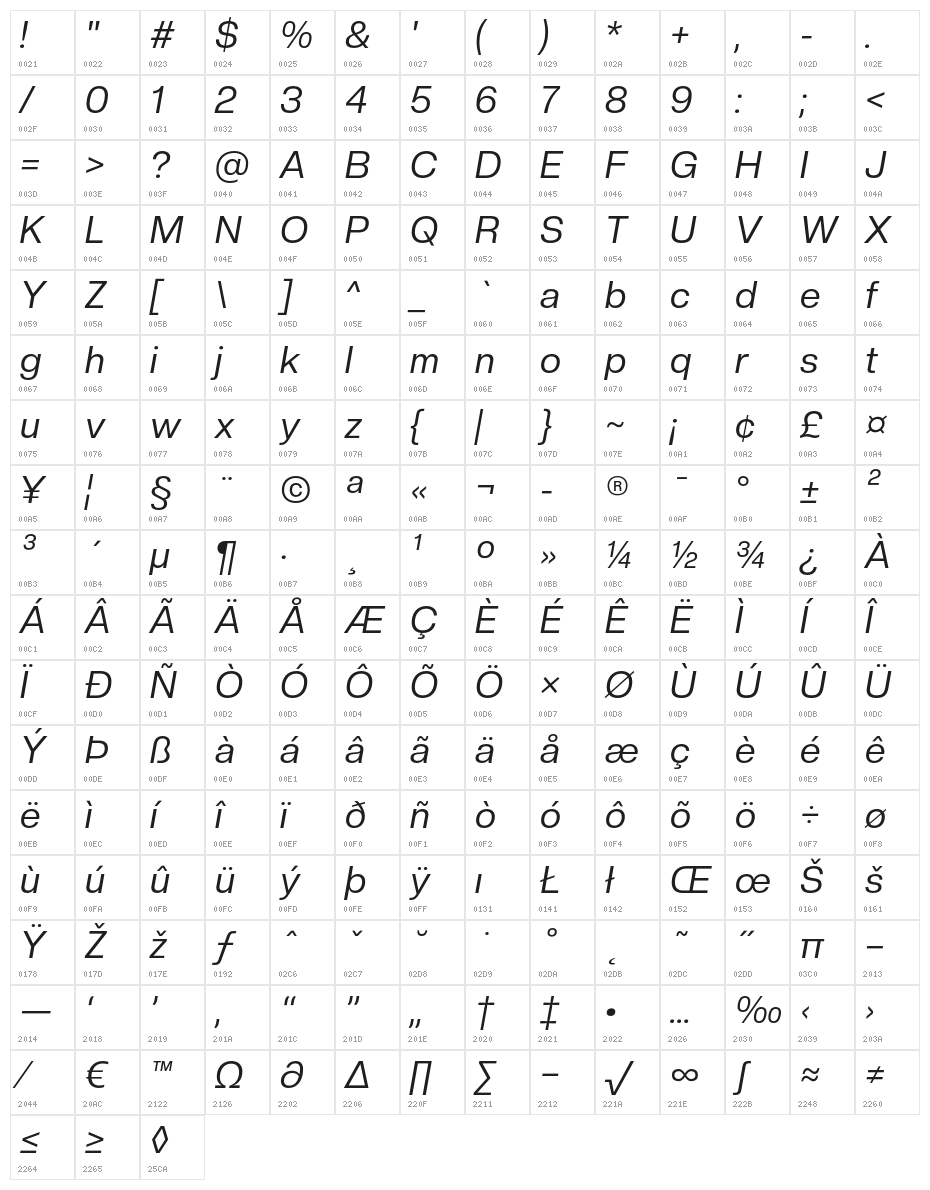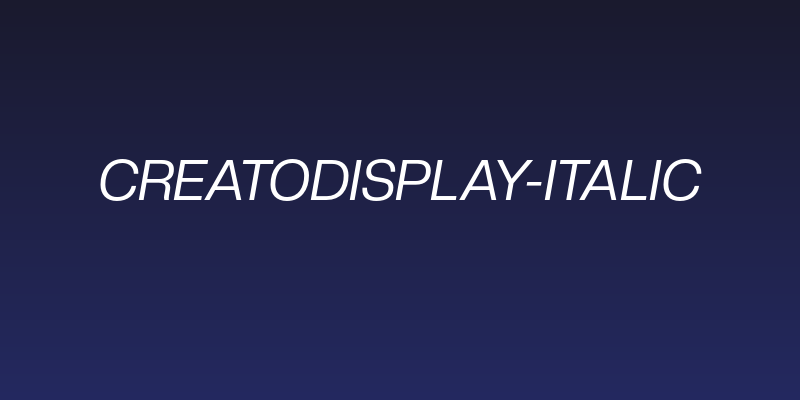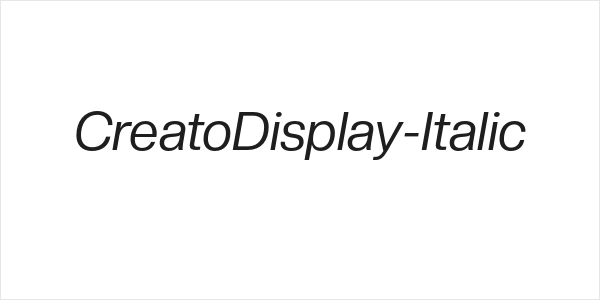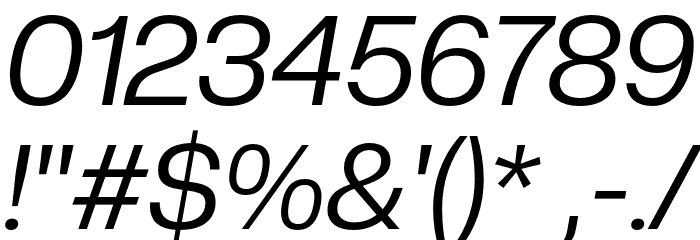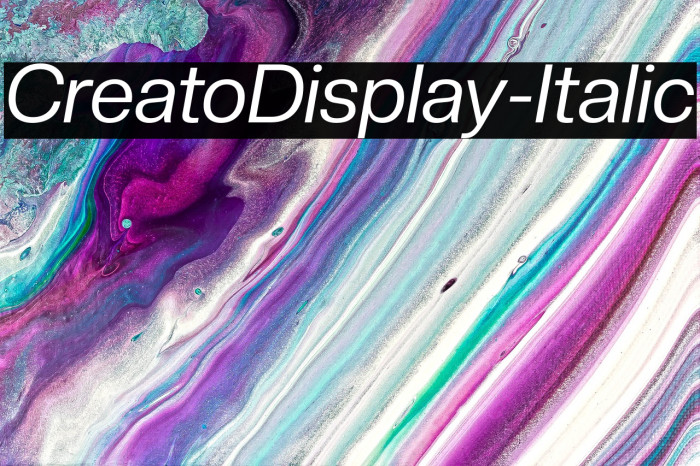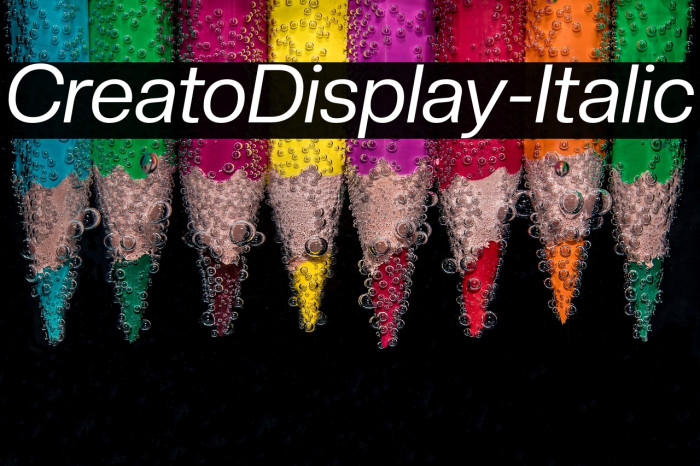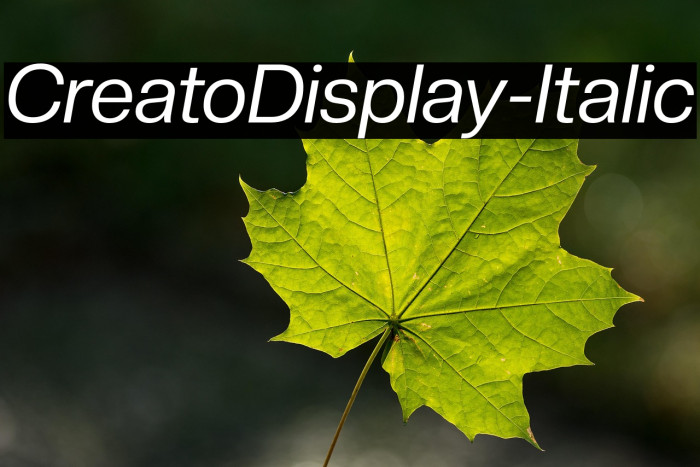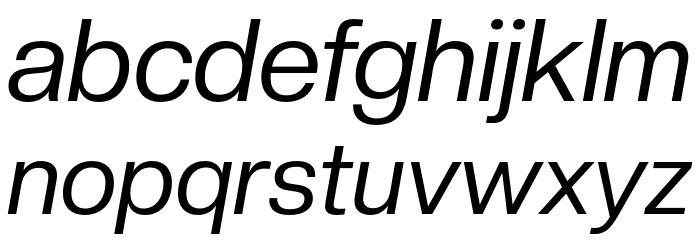
CreatoDisplay-Italic Font
CreatoDisplay-Italic Description
This font exhibits a sleek and modern design with a distinct italic slant, giving it a dynamic and forward-moving appearance. The characters are clean and well-defined, featuring smooth curves and a consistent stroke width that enhances readability. The uppercase and lowercase letters maintain a harmonious balance, while the numerals are clear and straightforward. Special characters are elegantly integrated, ensuring versatility in various applications. The overall aesthetic is contemporary, making it suitable for a wide range of design projects.
| Proposed Projects | Ideal for branding, advertising, and editorial design where a modern and dynamic look is desired. |